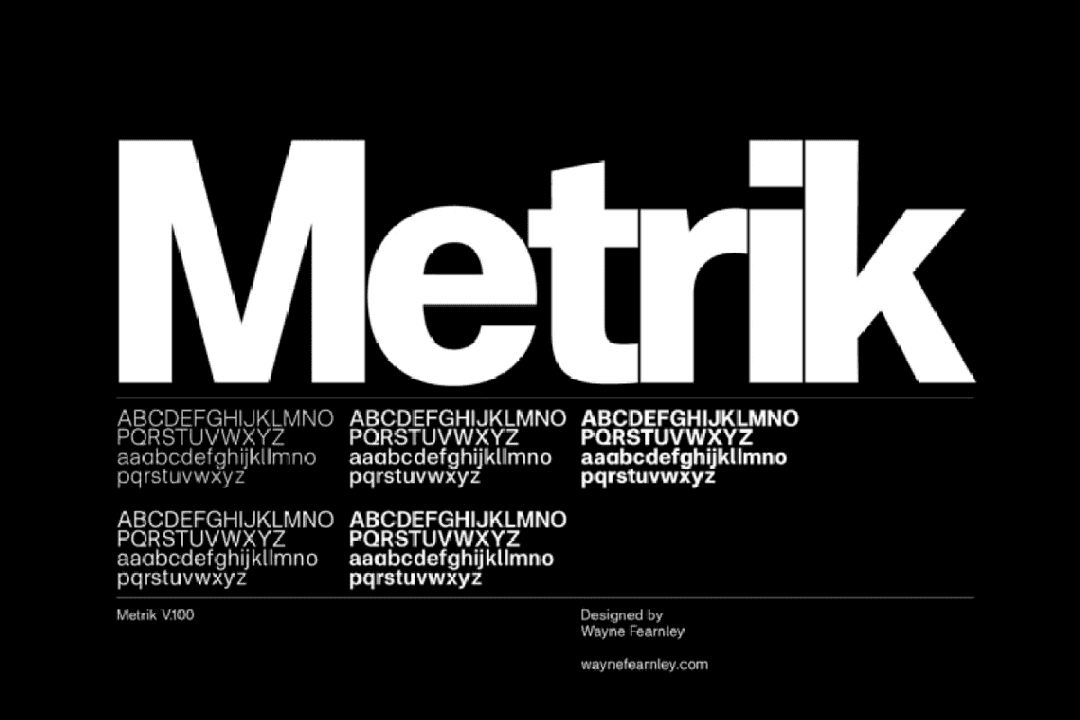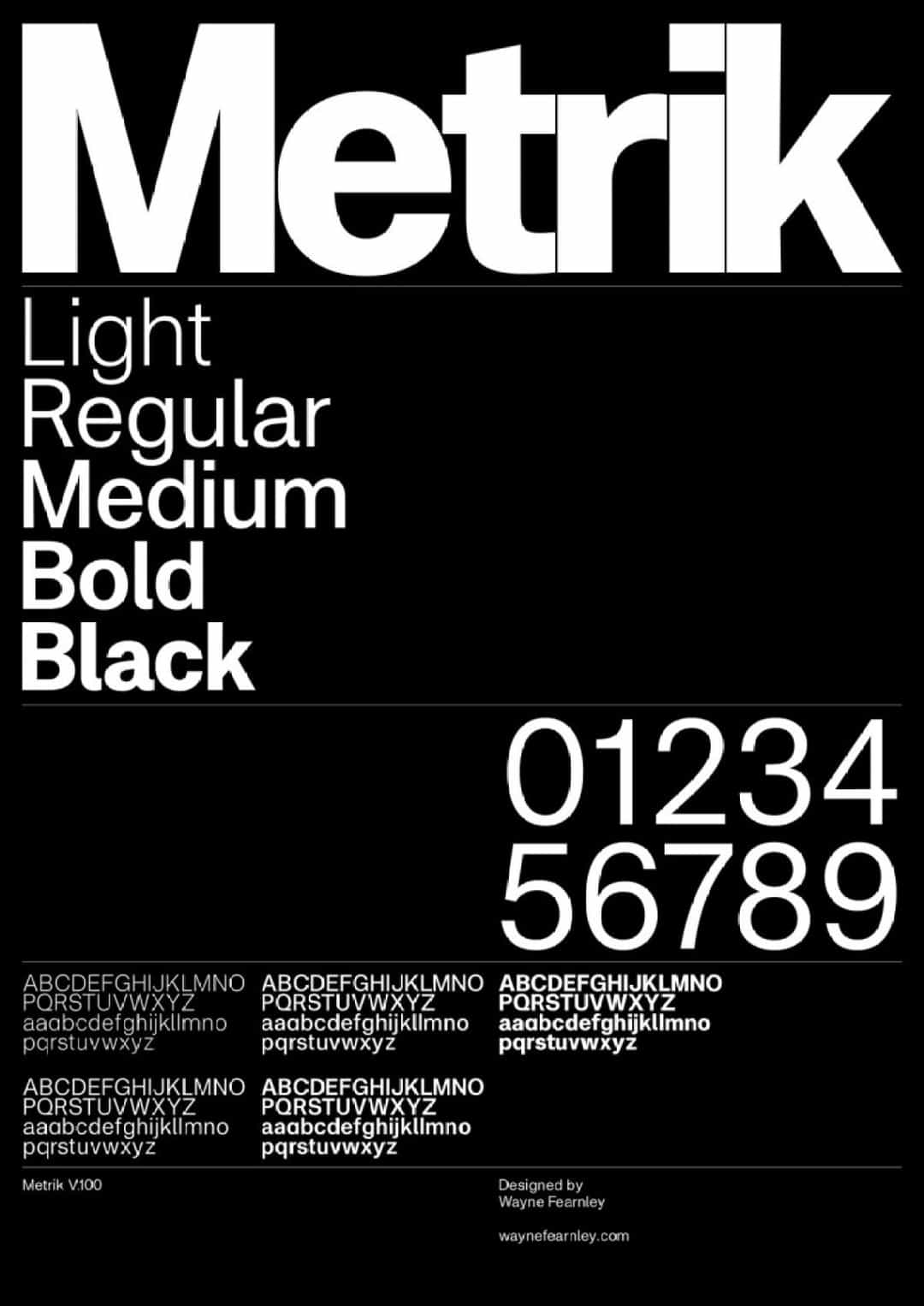
Metrik is a contemporary sans-serif font family comprised of 10 fonts meticulously designed using geometric forms and inspired by contemporary sans-serif fonts. Additionally, Metrik features some humanist characteristics influenced by Swiss tradition as well as classical literature.